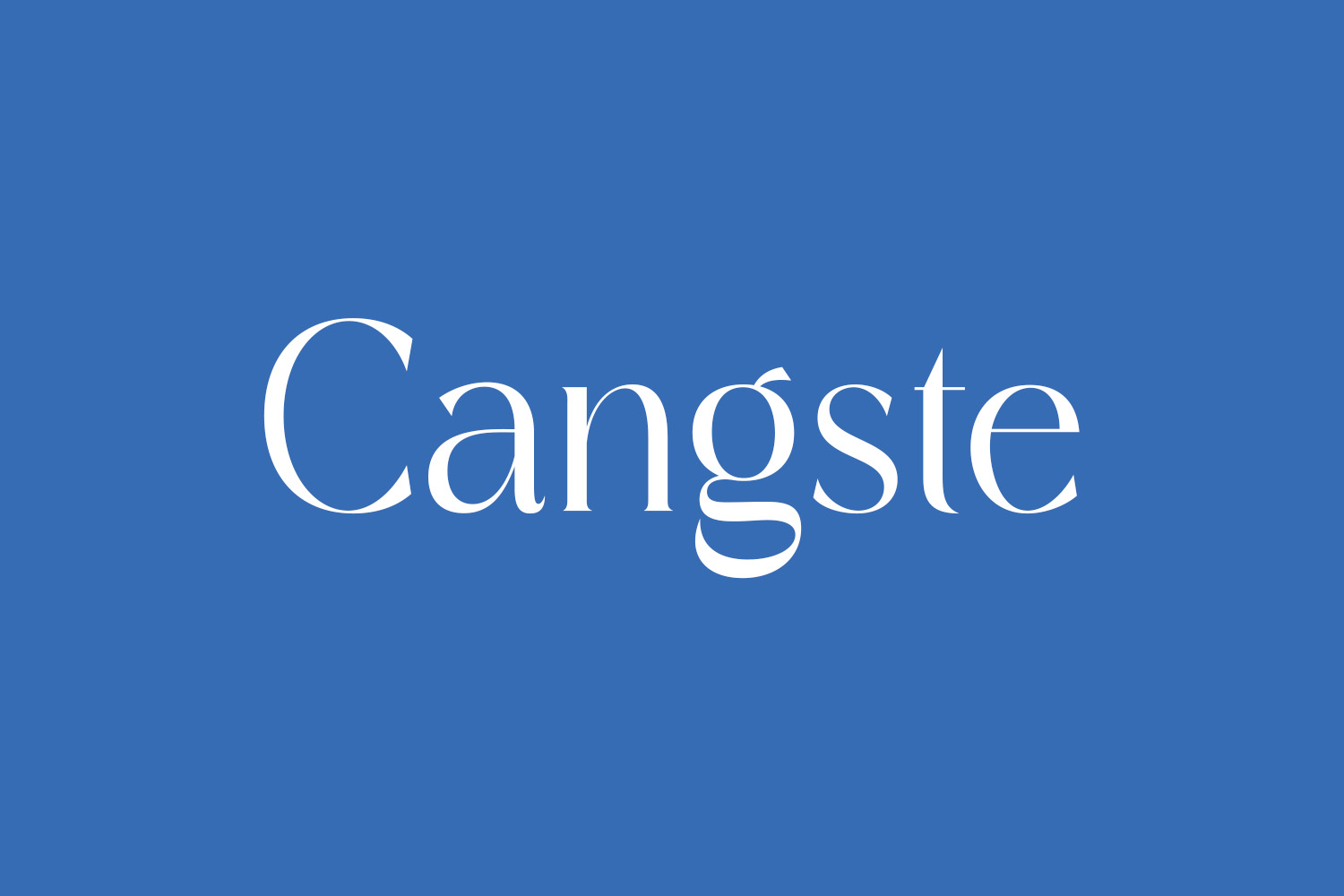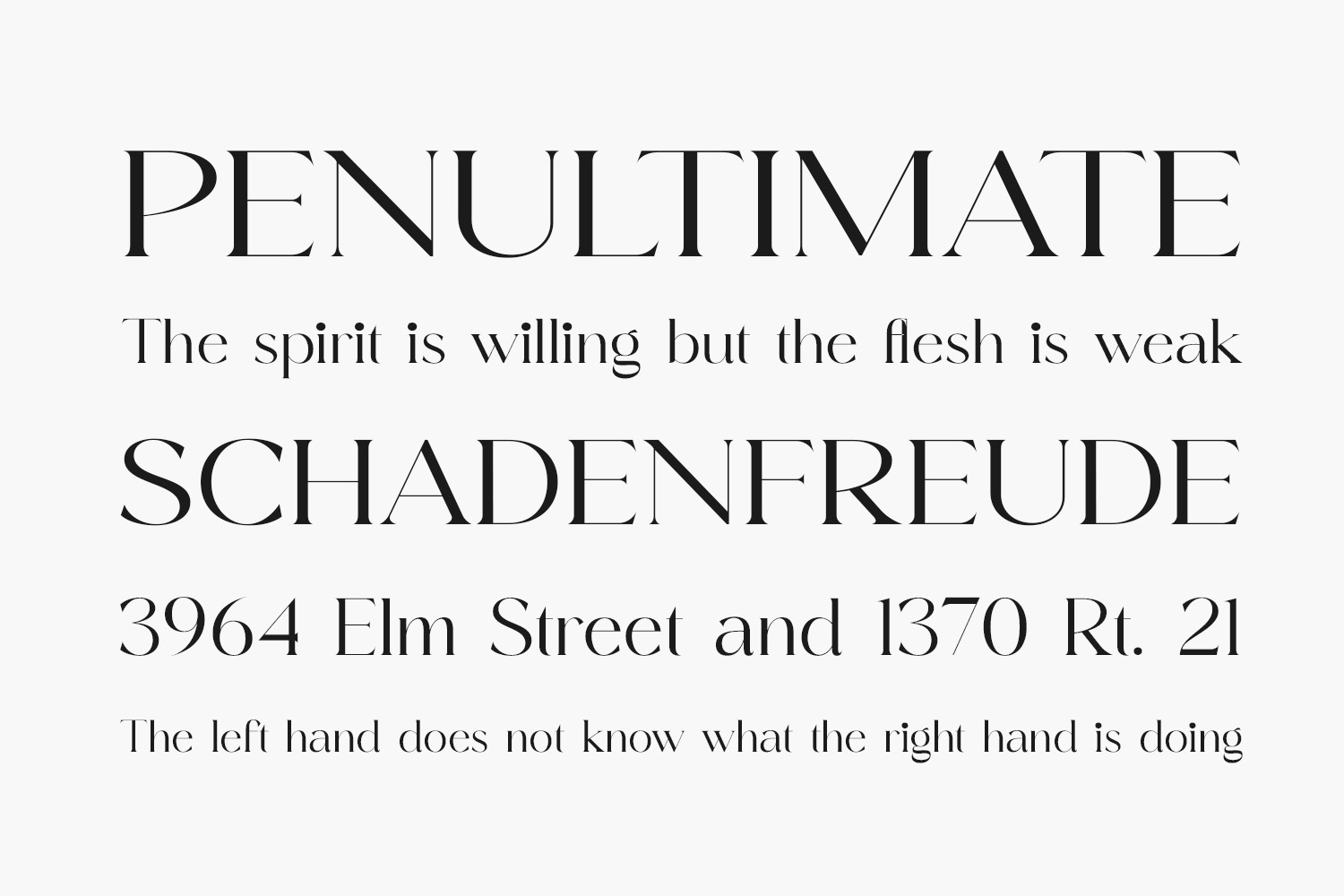
Cangste Free Font is a contemporary and timeless serif font that boasts a distinctive style and a modern aesthetic. This font is an ideal choice for crafting sophisticated and opulent logos, designing book or movie titles that exude luxury, establishing a strong presence for fashion brands, curating captivating magazines, creating stylish clothing items, and adding flair to lettering and quotes, among a myriad of other possibilities. Its versatility knows no bounds, making it a seamless fit for various creative ventures. Cangste Free Font is free for personal use only. Please purchase the full version for commercial use.